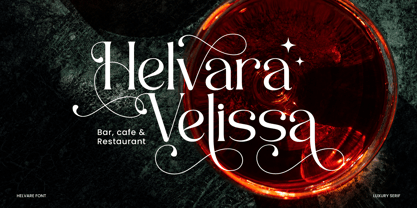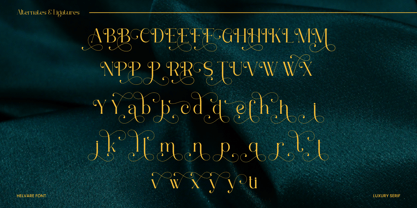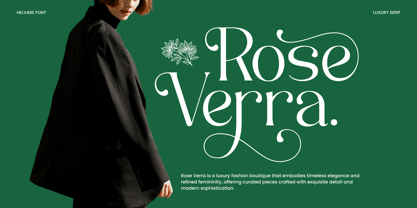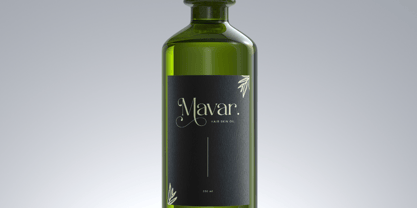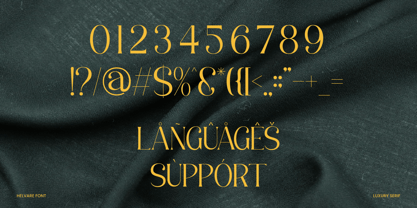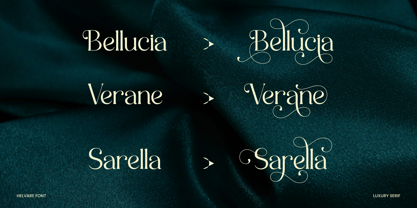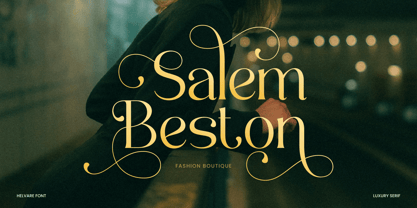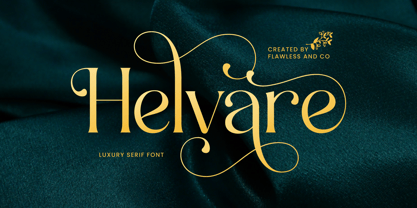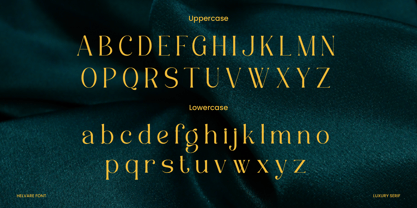
Helvare
by Flawlessandco
The Helvare Font Family was designed by Achmad Yani and published by Flawlessandco. Helvare contains 1 styles. More about this family
Helvare is a luxury serif typeface that redefines sophistication with graceful curves, refined details, and timeless elegance. Designed for modern branding, fashion, and editorial use, Helvare embodies the perfect balance of classic charm and contemporary aesthetics. Its stylish ligatures and exquisite letterforms make it an essential choice for creating high-end logos, upscale packaging, wedding invitations, and premium brand identities.
Designers: Achmad Yani
Foundry: Flawlessandco